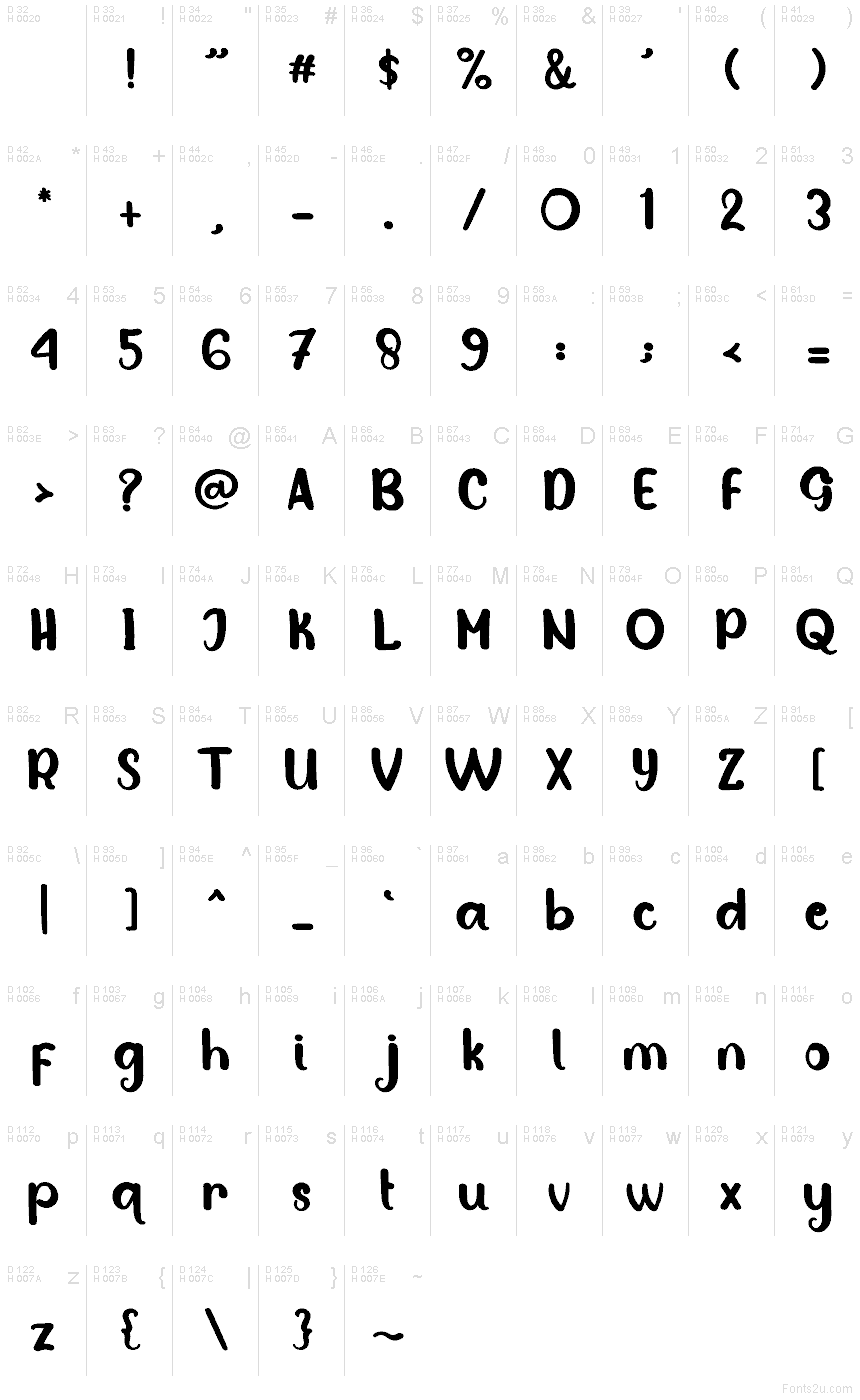
NIGHT BRUNCH
Night Brunch font is a brush typeface designed by One Design. Its quirky, casual, and inviting style with humanistic, vintage-inspired elements adds character to each project its added to. Mixed strokes and rounded terminals give this free font both simplicity and uniqueness.
The handwritten brush design of this font gives it endless possibilities for use for t-shirts, branding design, food menus, packaging design, quotes, apparel designs, advertising projects. It also fits invitations like wedding or birthday party ones among lots of other freelance or business work you might have.